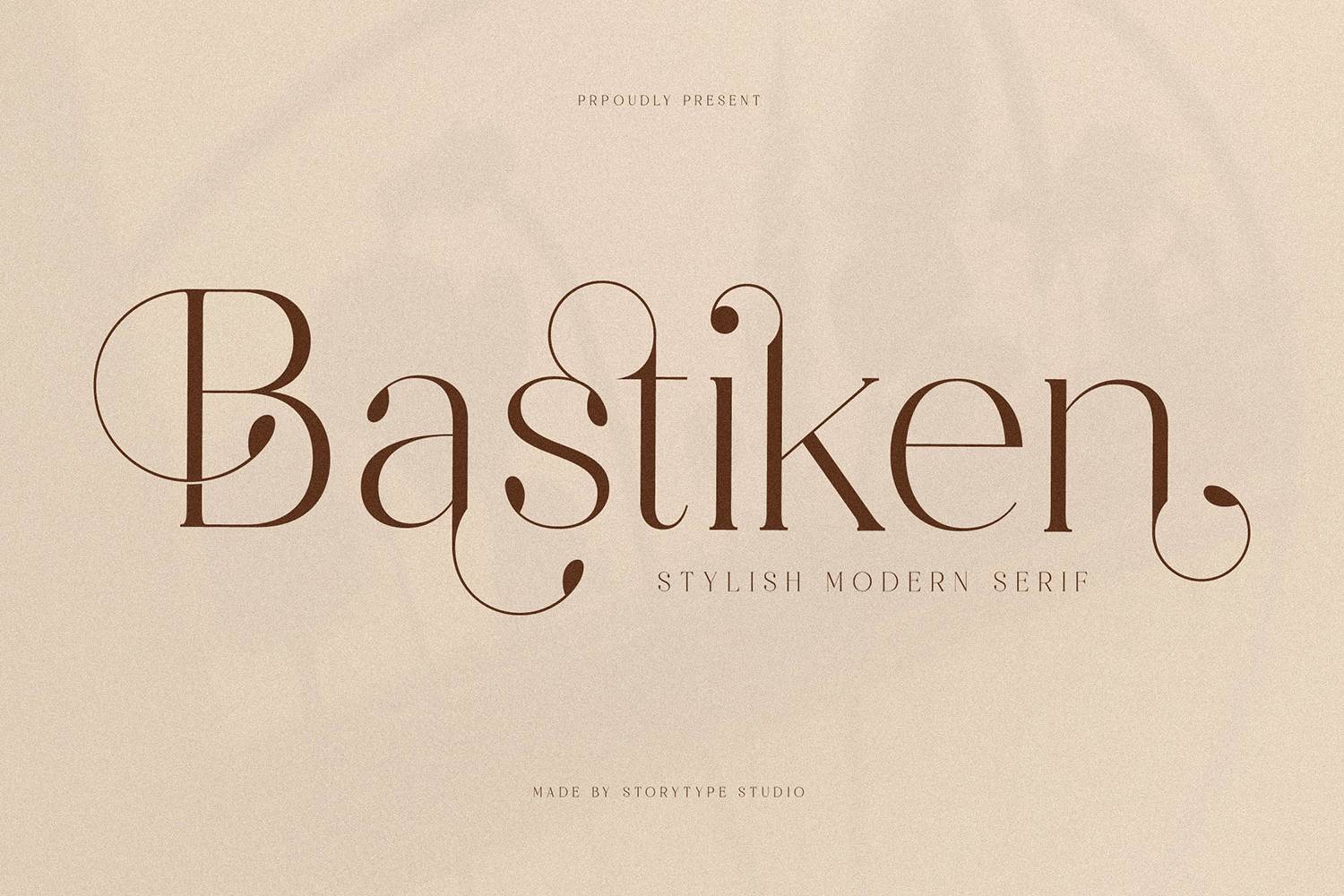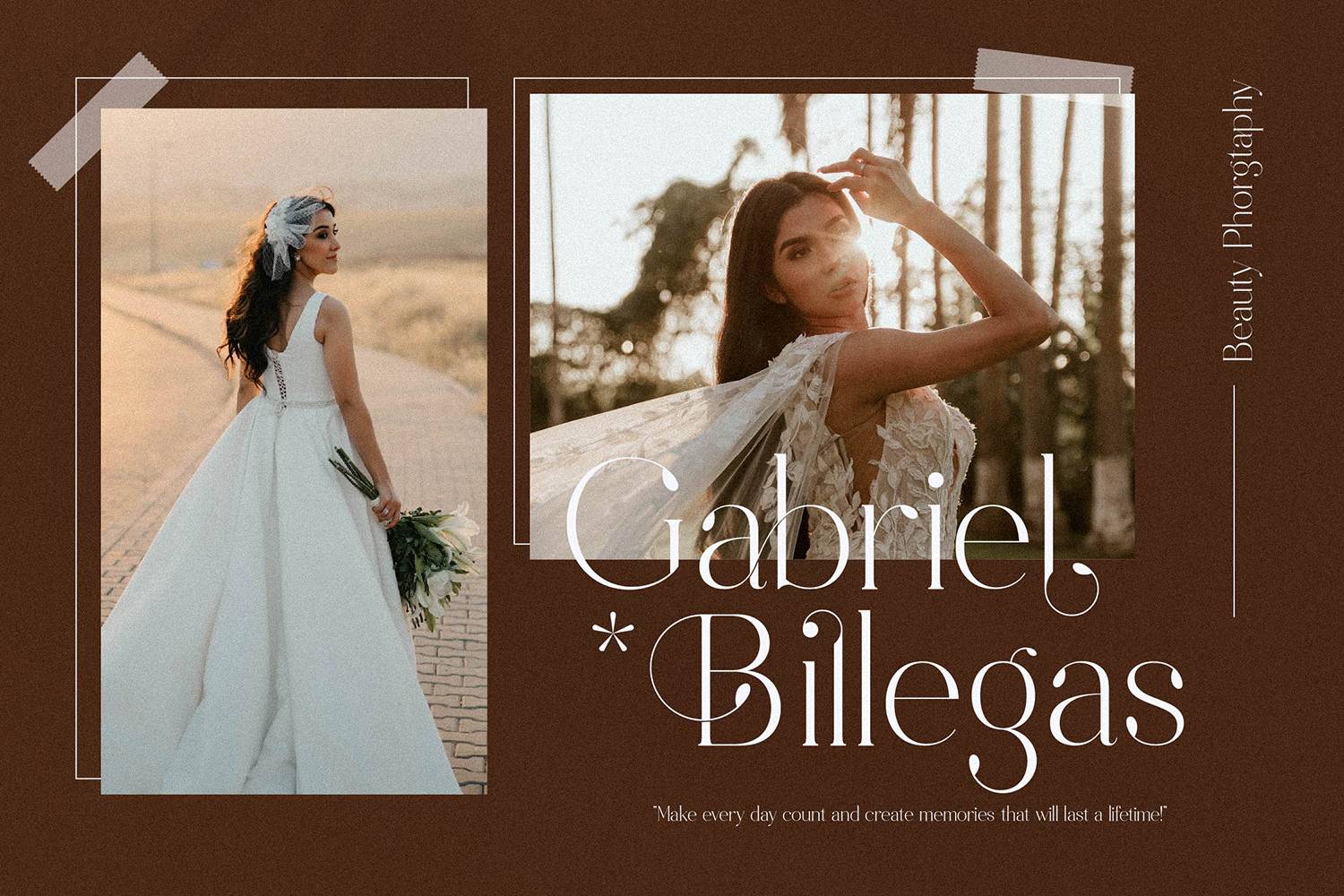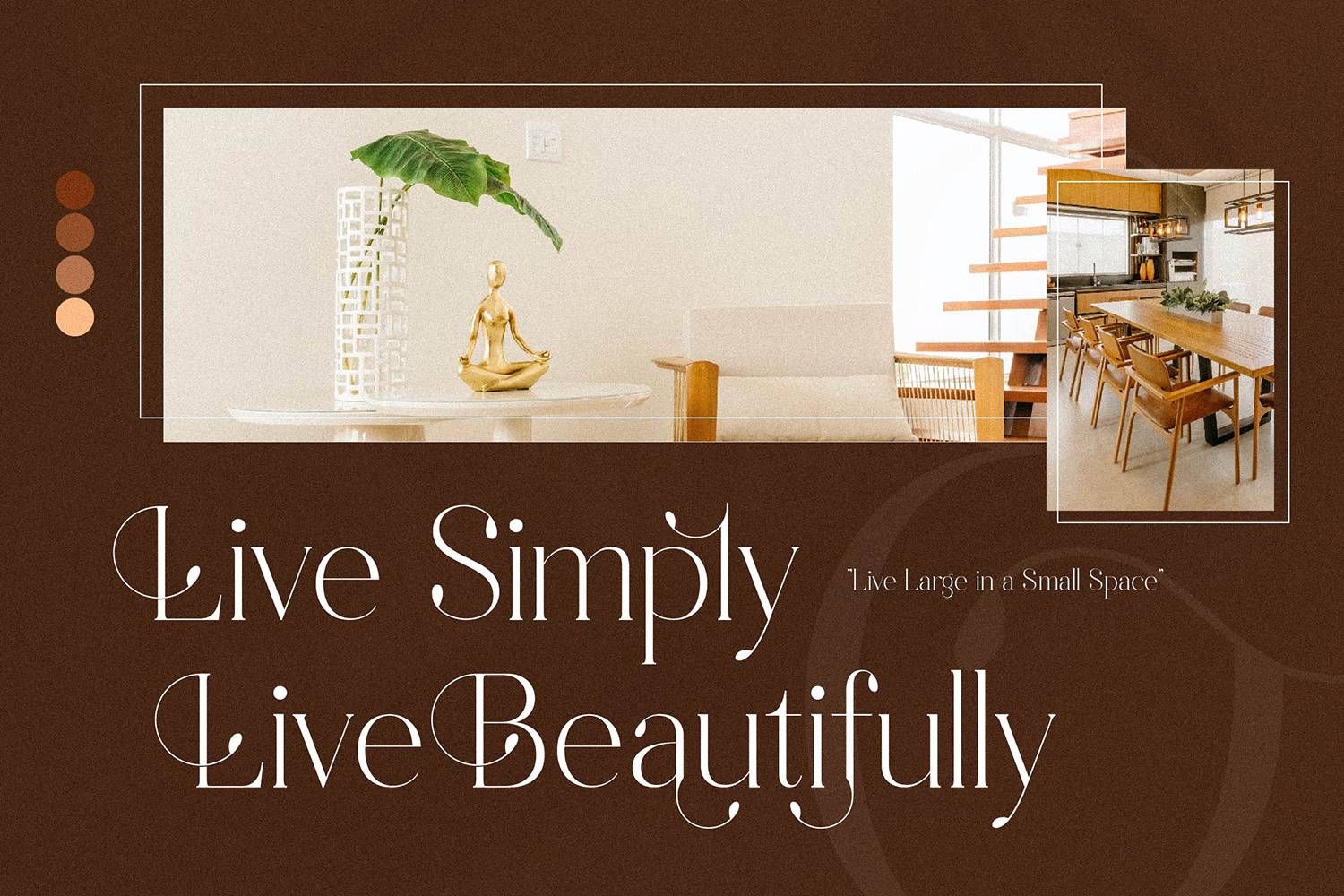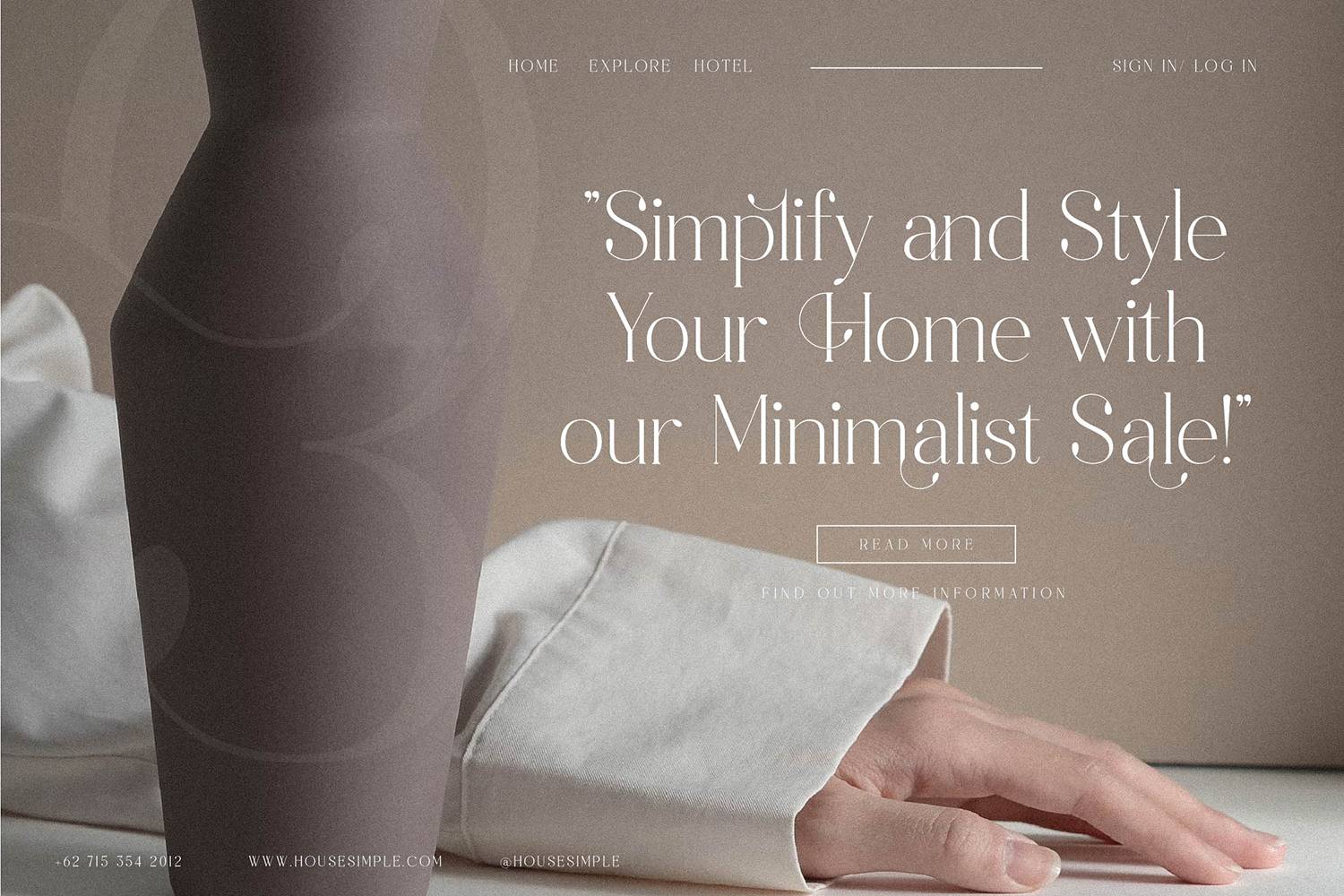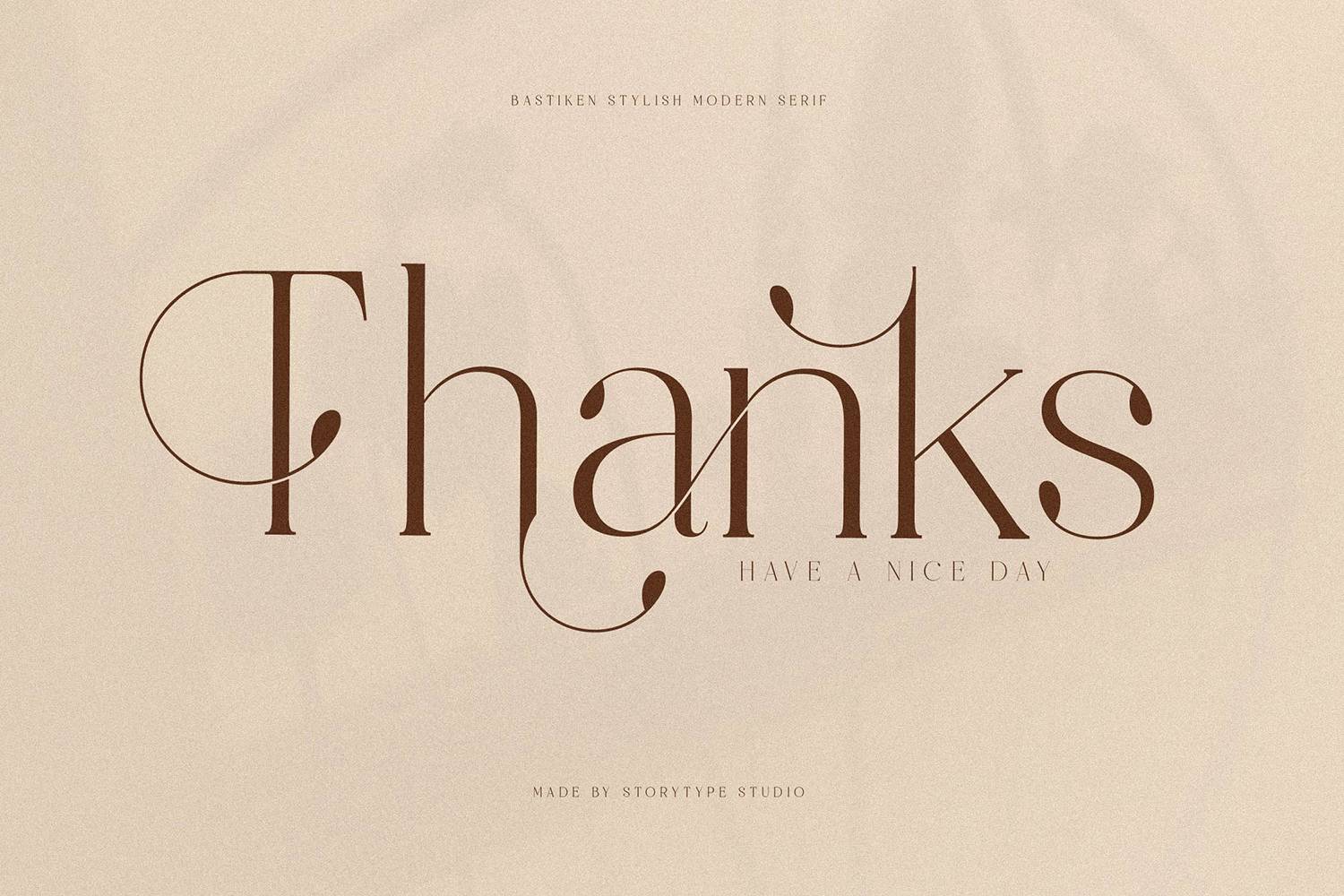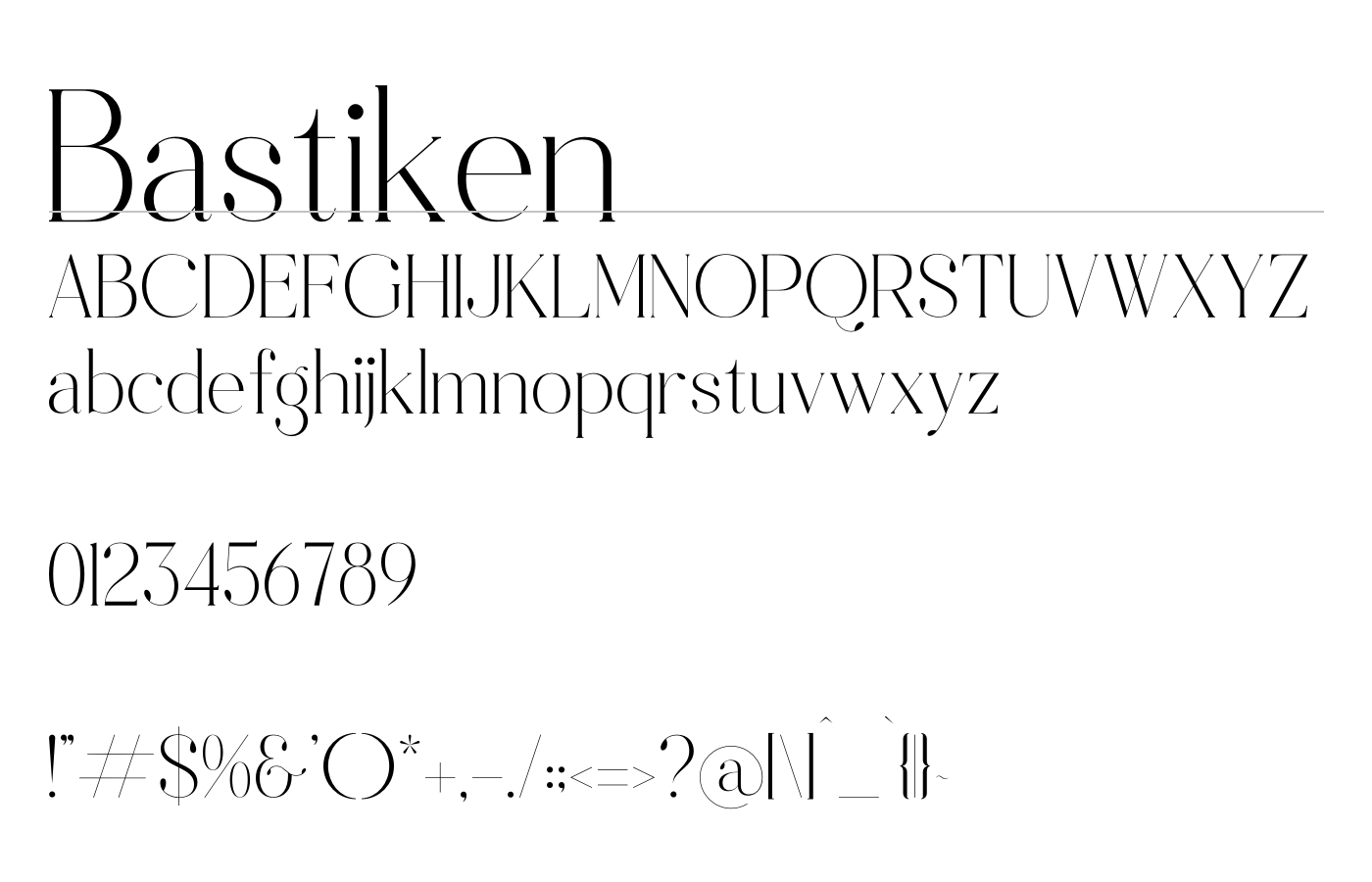
Bastiken is an elegant serif font characterized by its high contrast strokes and delicate, refined details, giving it a sophisticated and modern feel. Its tall, slender letterforms with distinctive bracketed serifs and unique curves make it ideal for luxury branding, editorial headlines, and upscale packaging where a stylish, graceful impression is desired. This font’s blend of classic serif elegance with contemporary sharpness works beautifully in designs that aim to convey refinement and exclusivity.
Bastiken Font
About Bastiken Font